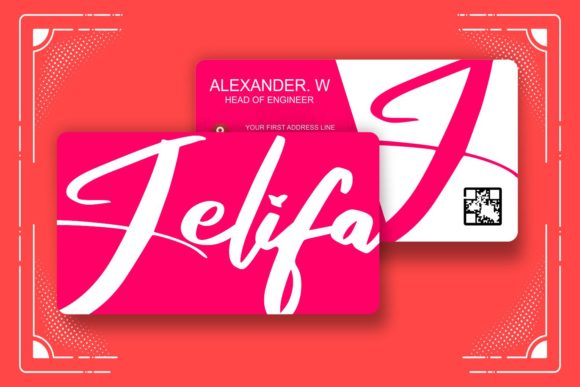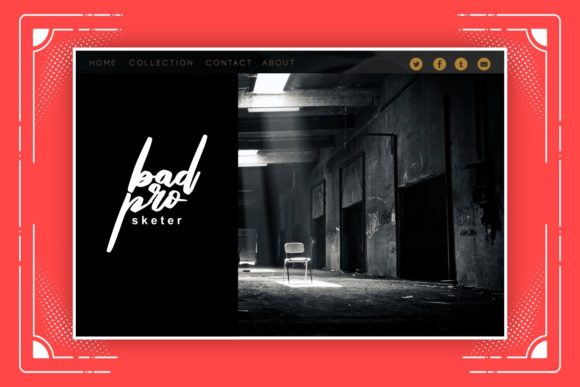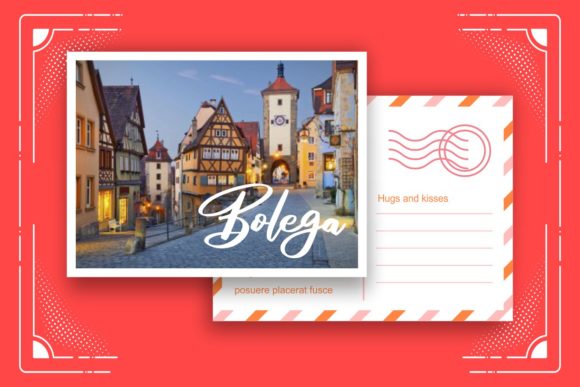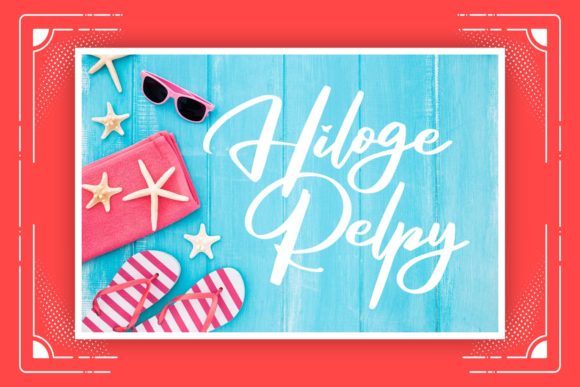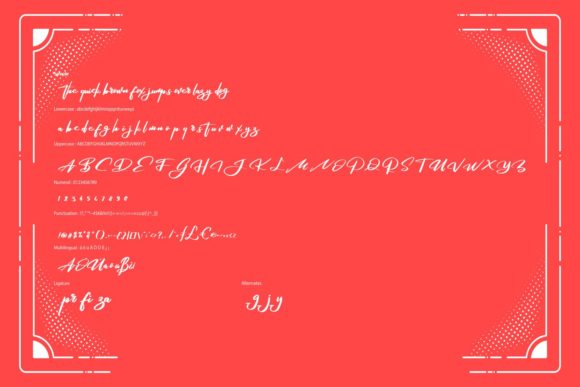
Introduction to Rosega Font
Rosega is a stunning script font that will turn any design into a true standout.
Get inspired by its bold charm .
Key Features of Rosega Font
Why Choose Rosega Font?
Rosega Font offers exceptional quality and versatility, making it a valuable addition to your design toolkit. Whether you’re creating for personal projects or commercial use, Rosega Font delivers professional results.